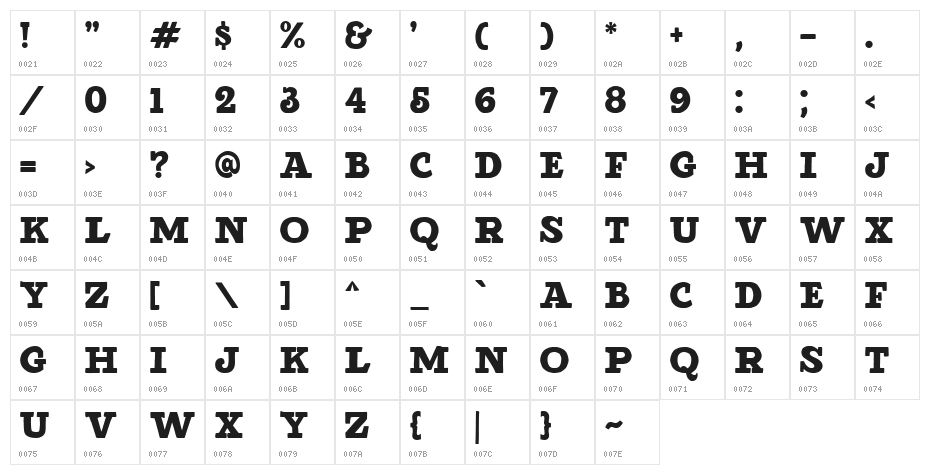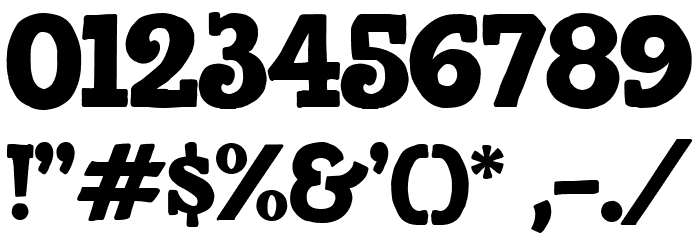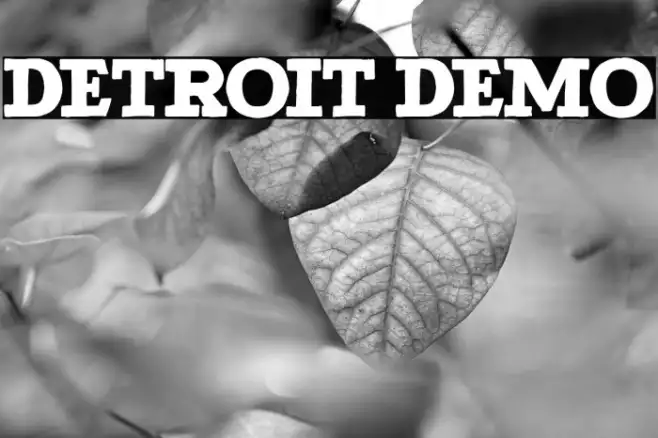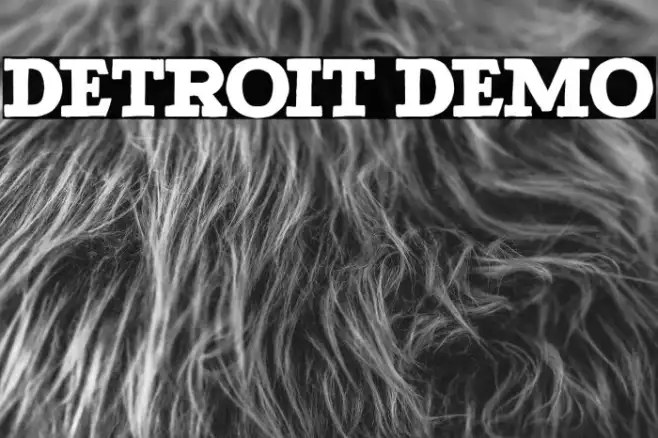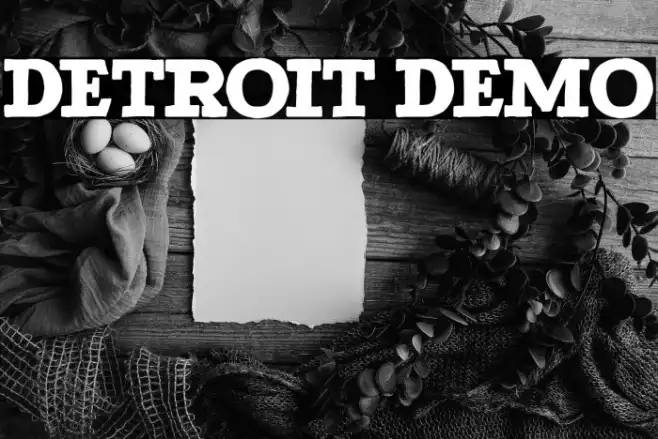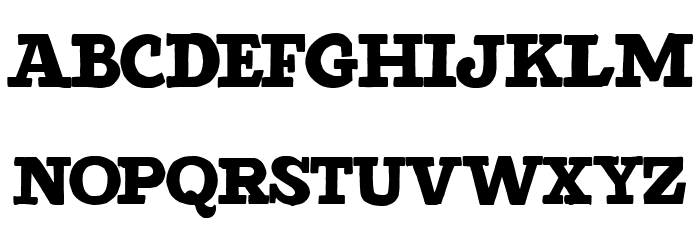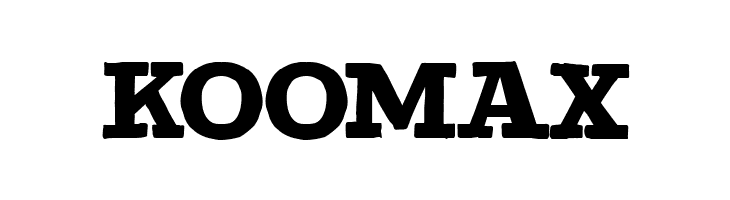
Detroit DEMO Font
Detroit DEMO Description
This font features a bold and robust design, characterized by thick, block-like letters with a strong presence. The uppercase letters are uniform in height, with a slight curvature on certain characters, adding a touch of uniqueness. The numbers are equally bold, maintaining the same weight and style as the letters, ensuring consistency across all characters. Special characters are designed with the same boldness, making them stand out effectively. The overall appearance is impactful, making it suitable for attention-grabbing headlines and titles.